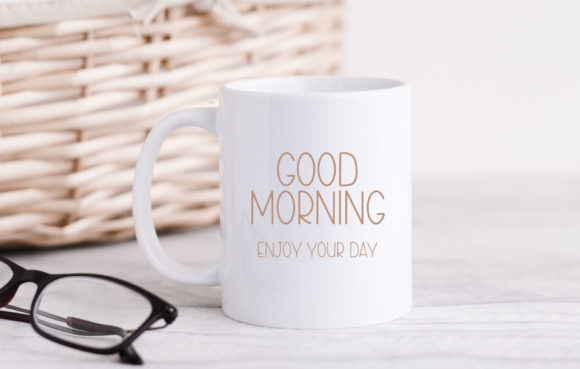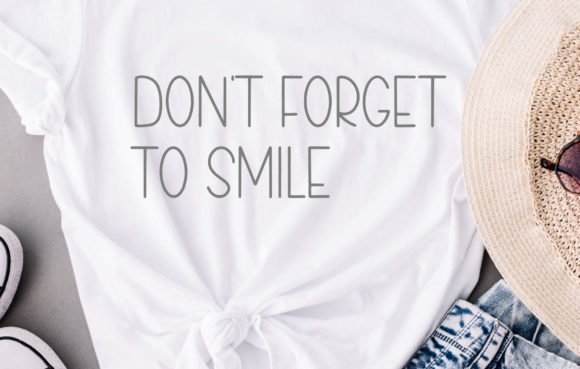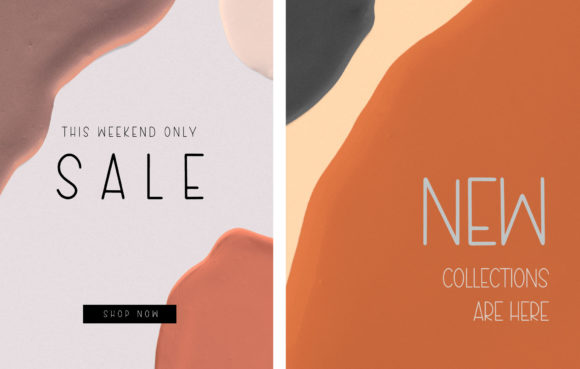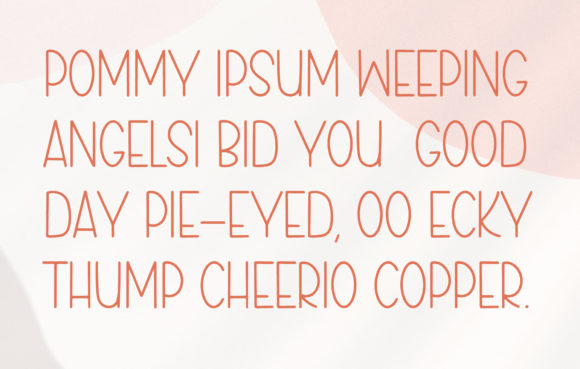
Croissant Font: The Sweet and Friendly Handwritten Font for Your Designs
Are you a designer or crafter looking for a font that can add a touch of sweetness and friendliness to your designs? Look no further than the Croissant Font! This beautiful handwritten font is perfect for a wide range of design projects, from branding and packaging to invitations and DIY crafts.
What is Croissant Font?
Croissant Font is a sweet and friendly handwritten font that is designed to bring a personal touch to your designs. Its natural and unique style makes it incredibly fitting to a large pool of designs, from modern and trendy to vintage and rustic. The font’s playful and whimsical feel makes it perfect for designs that require a touch of warmth and personality.
Characteristics of Croissant Font
So, what makes Croissant Font so special? Here are some of its key characteristics:
- Handwritten style: Croissant Font is a handwritten font that is designed to look like it was written with a pen or pencil. This gives it a personal and unique feel that is perfect for designs that require a touch of personality.
- Sweet and friendly: The font has a sweet and friendly feel that makes it perfect for designs that require a touch of warmth and approachability.
- Natural and unique: Croissant Font has a natural and unique style that makes it stand out from other fonts. Its irregularities and imperfections give it a handmade feel that is perfect for designs that require a personal touch.
- Versatile: Croissant Font is incredibly versatile and can be used for a wide range of design projects, from branding and packaging to invitations and DIY crafts.
Uses of Croissant Font
Croissant Font is perfect for a wide range of design projects, including:
- Branding and packaging: Use Croissant Font to add a touch of personality to your brand’s packaging and marketing materials.
- Invitations and stationery: Croissant Font is perfect for invitations, greeting cards, and other stationery items that require a personal touch.
- DIY crafts: Use Croissant Font to add a touch of sweetness and friendliness to your DIY crafts, such as scrapbooking, journaling, and card making.
- Social media graphics: Croissant Font is perfect for social media graphics, such as quotes, posters, and ads that require a touch of personality.
Tips for Using Croissant Font
Here are some tips for using Croissant Font in your designs:
- Use it with a simple background: Croissant Font looks best with a simple background that doesn’t compete with the font’s natural and unique style.
- Experiment with colors: Croissant Font looks great in a variety of colors, from bright and bold to soft and pastel.
- Use it in combination with other fonts: Croissant Font can be used in combination with other fonts to create a unique and interesting design.
- Don’t be afraid to get creative: Croissant Font is a versatile font that can be used in a wide range of design projects. Don’t be afraid to get creative and try new things!
In conclusion, Croissant Font is a sweet and friendly handwritten font that is perfect for designers and crafters who want to add a touch of personality to their designs. Its natural and unique style makes it incredibly fitting to a large pool of designs, and its versatility makes it perfect for a wide range of design projects. Whether you’re looking to create a brand identity, design an invitation, or make a DIY craft, Croissant Font is the perfect choice. So why wait? Download Croissant Font today and start creating your own unique designs!